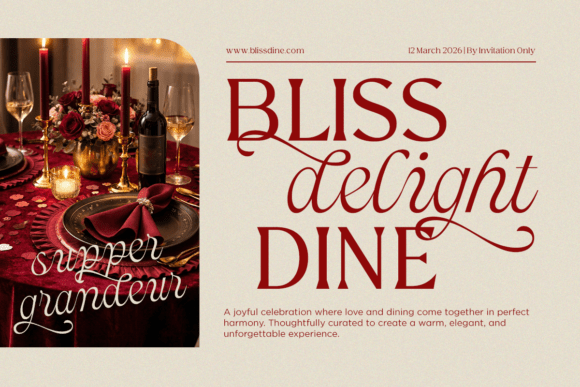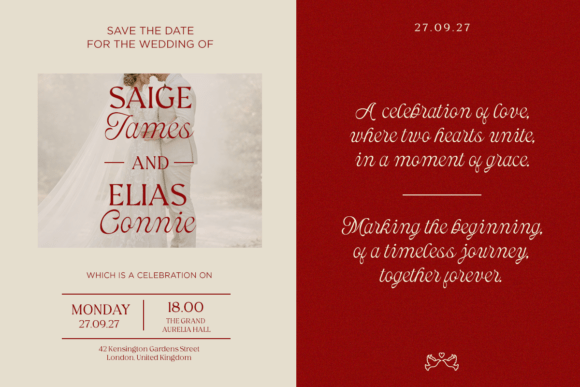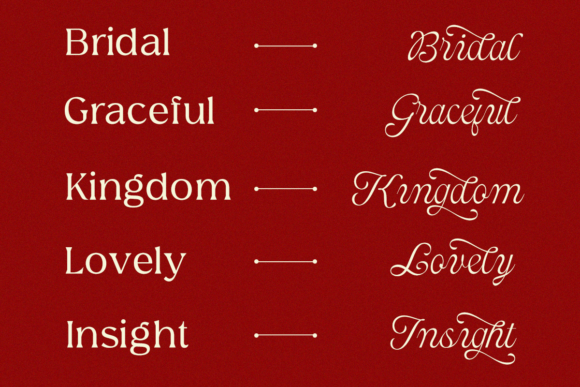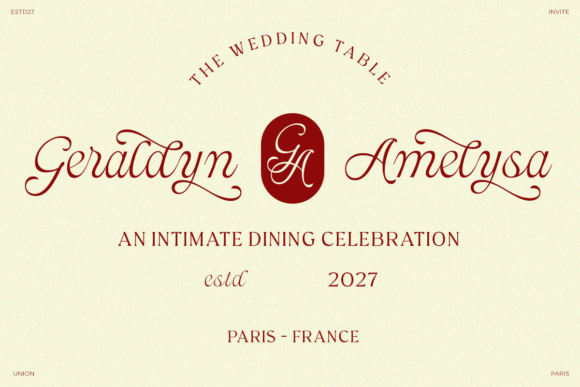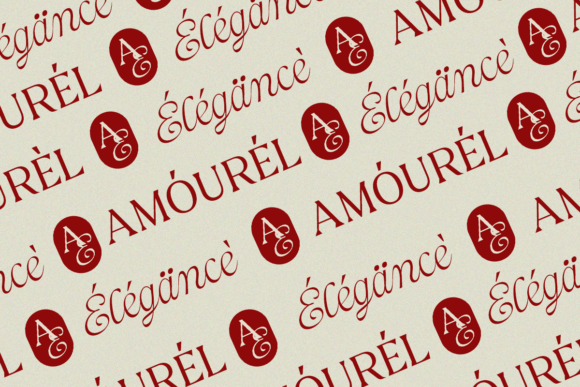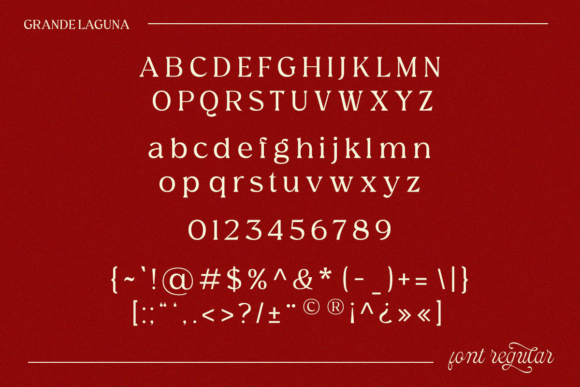
When Words Become Art: Discovering the Timeless Elegance of Grande Laguna Font
Have you ever found yourself staring at a beautifully crafted typographic composition, mesmerized by the way the letters seem to dance across the page? That’s exactly what happened to me when I first laid eyes on the Grande Laguna Font duo. This elegant pairing of refined serif and graceful script has a way of transporting you to a world of luxury and sophistication, where every word feels like a work of art.
As a versatile and sophisticated font combination, Grande Laguna is designed to elevate any design, from branding and editorial layouts to high-end visual identities. With its clean serif forms and flowing script ligatures, designers can create stunning typographic compositions with ease. Whether used together or separately, both styles complement each other seamlessly, making Grande Laguna Font a valuable asset for any designer looking to add a touch of timeless elegance to their work.
Grande Laguna Font Key Features
- Unique Characteristics: Grande Laguna Font features a unique blend of modern and vintage elements, with intricate details and ornate flourishes
Grande Laguna Font Review
Overall, I found the Grande Laguna Font to be a visually appealing and elegant script font. ✨ It has a unique flair that makes it perfect for adding a touch of sophistication to any design project. The font’s flowing lines and subtle curves create a sense of movement and energy.
Here are some of the things I like about the Grande Laguna Font:
- ✨ The font’s high x-height makes it highly legible, even at smaller font sizes.
- ✨ The subtle irregularities in the font’s design add a touch of personality and character.
- ✨ The Grande Laguna Font is highly versatile and can be used for a wide range of design projects, from invitations to advertisements.
- ⚠️ The font may not be suitable for body text, as it can be quite difficult to read at larger font sizes.
- ⚠️ The Grande Laguna Font may not be the best choice for digital designs, as it can be quite pixelated at smaller font sizes.
Overall, I would highly recommend the Grande Laguna Font for any design project where a touch of elegance and sophistication is needed. Just be sure to use it in moderation and pair it with a clear, readable font for body text.
Practical Application Guide for Grande Laguna Font
Tips for Getting the Most Out of Grande Laguna Font
Grande Laguna Font is a elegant and sophisticated font, making it perfect for:
- Formal business presentations.
- High-end product branding.
Remember to pair Grande Laguna Font with a simple and clean design to let the font take center stage.
Alternatives to Grande Laguna Font
Playfair Display is a luxurious, high-end serif font suitable for formal designs, such as wedding invitations, luxury brands, or high-end magazines. It features elegant connections between letters and a touch of sophistication.
Compared to Grande Laguna Font, Playfair Display is more formal and luxurious, while Grande Laguna Font has a more modern and sleek feel.
Bebas Neue is a modern, sans-serif font ideal for headings, titles, and logos in digital products, such as apps, websites, or video games. It features a clean and geometric design.
Compared to Grande Laguna Font, Bebas Neue is more geometric and modern, while Grande Laguna Font has a more fluid and elegant feel.
Montserrat is a sans-serif font designed for urban environments, suitable for headings, titles, and body text in digital products, such as websites, apps, or magazines. It features a clean and modern design with geometric shapes.
Compared to Grande Laguna Font, Montserrat is more modern and urban, while Grande Laguna Font has a more elegant and sophisticated feel.
Merriweather is a classic, serif font suitable for body text, such as articles, blog posts, or books. It features a traditional and elegant design with a high x-height.